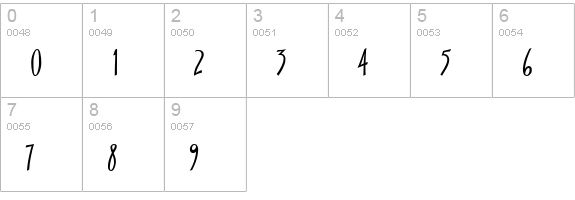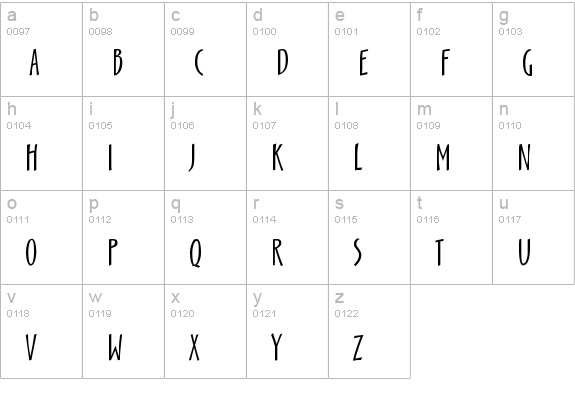
Episode Font Details
Discover the exquisite beauty of Episode font, a modern and versatile typeface that will elevate your design projects to new heights. With its elegant letterforms and sleek design, Episode is the perfect choice for any creative endeavor. Whether you're working on branding, editorial design, or web projects, this font will surely make a lasting impression. What's even better is that Episode font is completely free to download at FontsMarket.com. Yes, you heard that right - you can get your hands on this stunning font at no cost at all. So go ahead and enhance your designs with the beauty and sophistication of Episode font, now available for free download at FontsMarket.com.